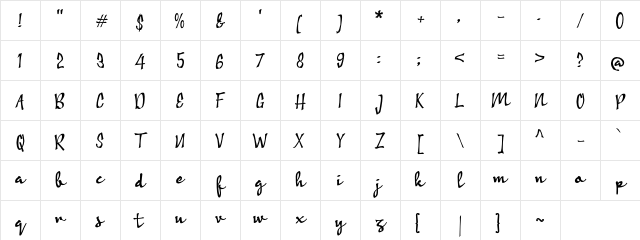
a Ambyar Sobat Regular Free Font
a Ambyar Sobat Regular
Designer: Wahyu Eka Prasetya
Design Context for a Ambyar Sobat
a Ambyar Sobat is a composed and adaptable typeface that performs quietly and consistently across a wide range of design contexts.